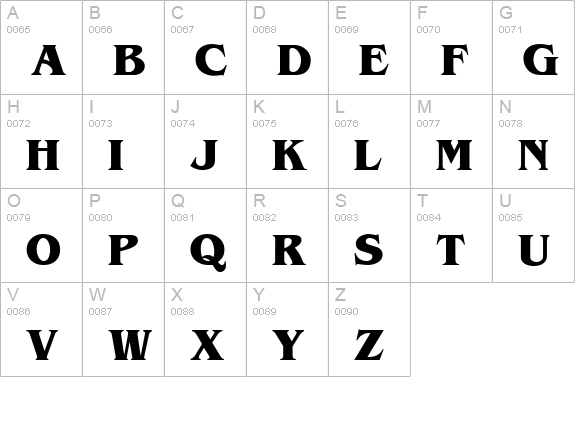
Benguiat Bold Font is a strong, high-contrast variant in the Benguiat typeface family \xE2\x80\x94 well suited to headlines, attention-grabbing titles, and strong calls-to-action.
Benguiat Bold Font is a striking and bold typeface that commands attention with its strong and timeless design. Perfect for headlines, titles, and other display purposes, this font exudes confidence and authority. Its sharp serifs and clean lines give it a classic and elegant feel, making it a versatile choice for a wide range of design projects.